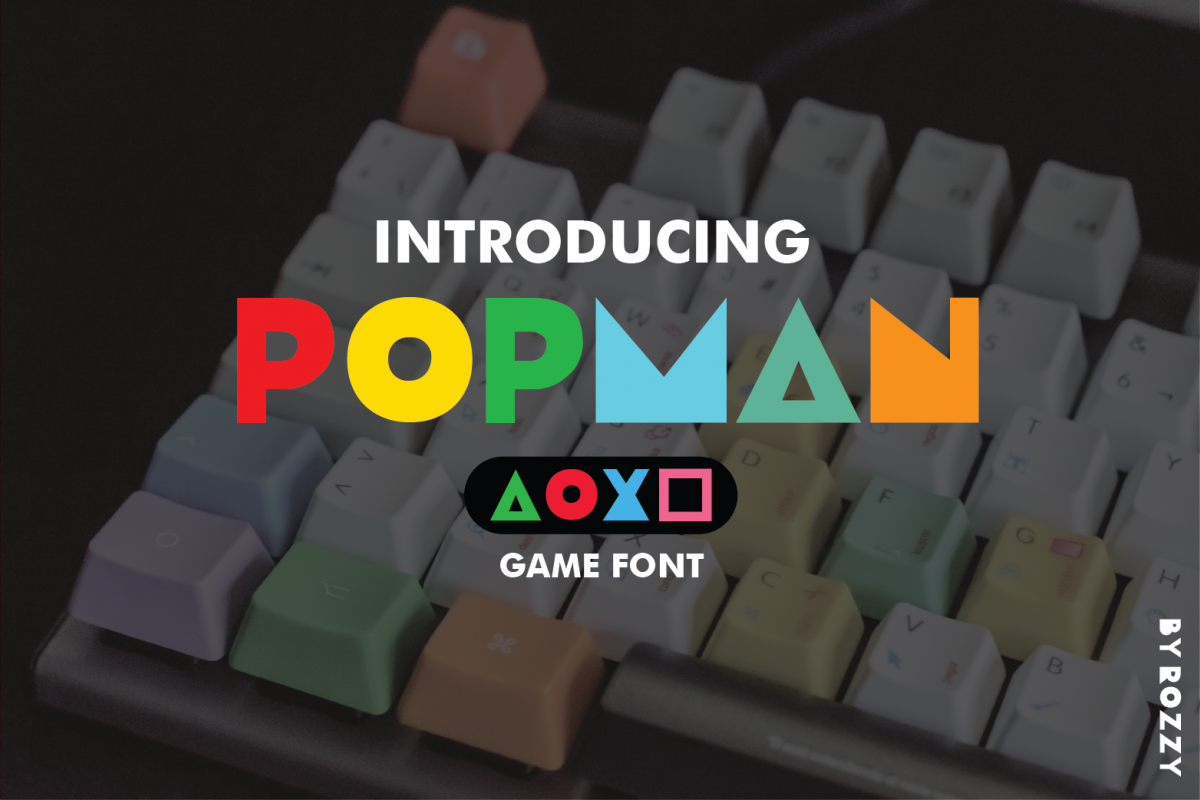
Popman Game Font
Introducing POPMAN | Game Font. It comes with Game Font which is perfect to make any design.
This font is perfect for branding, magazines, quotes, wedding, invites, business cards, posters, and more.
PopMan Game Font Features:
• Numerals & Punctuations
• Suitable for T-Shirt Logotypes, Signs, Headlines,  Posters, Letterhead and many more.